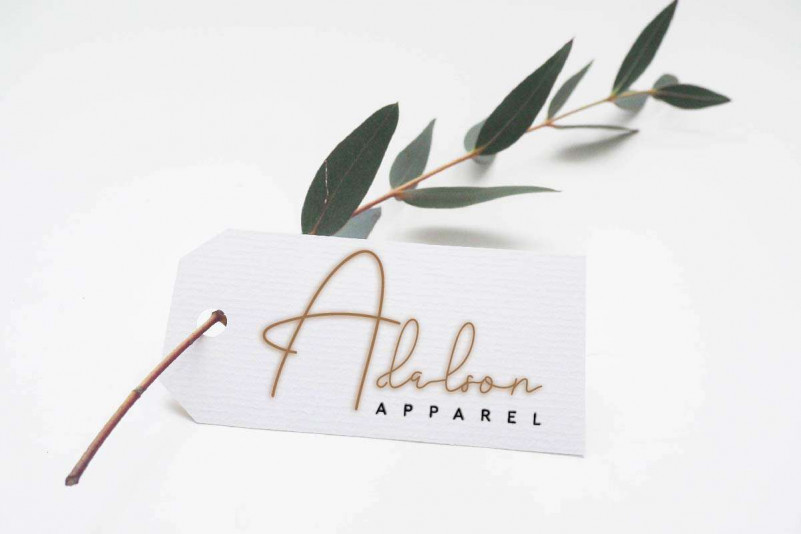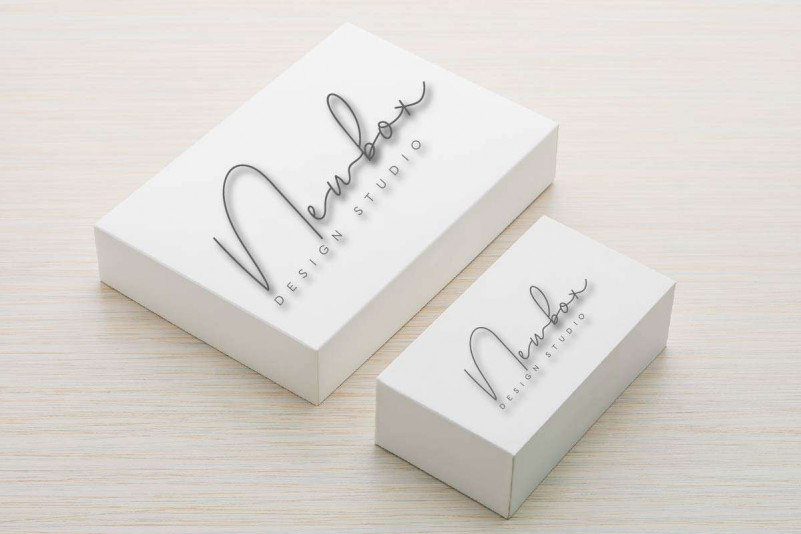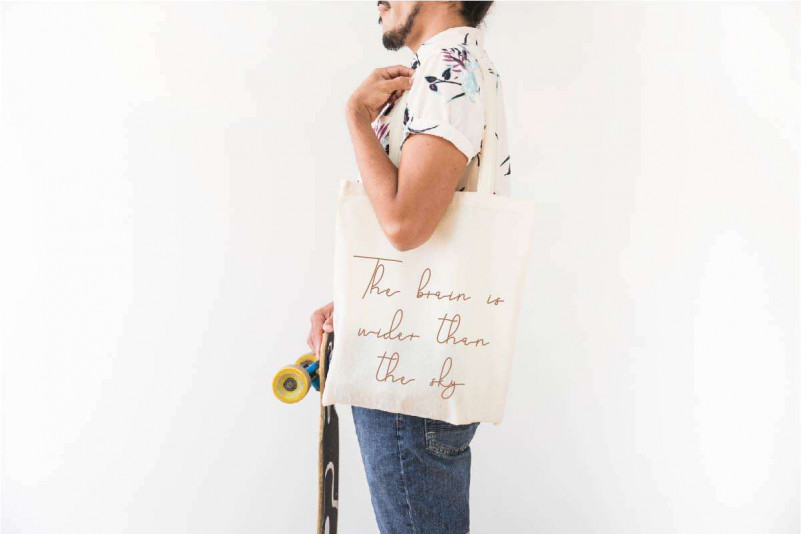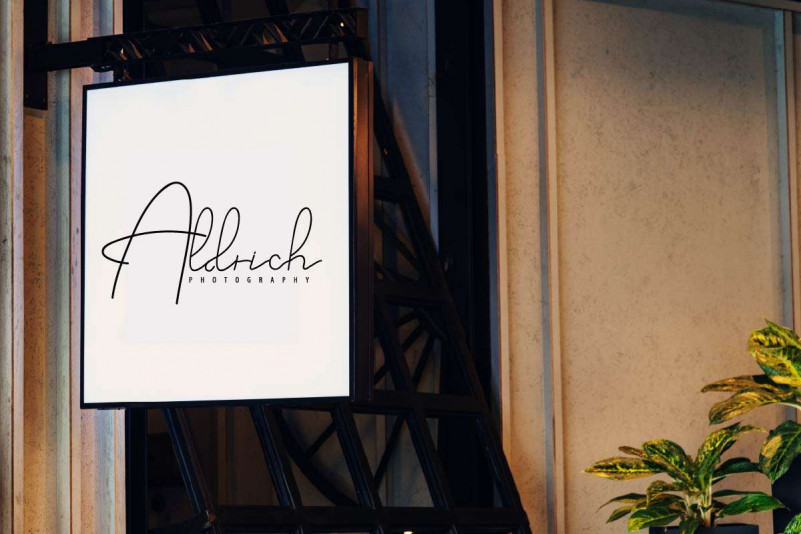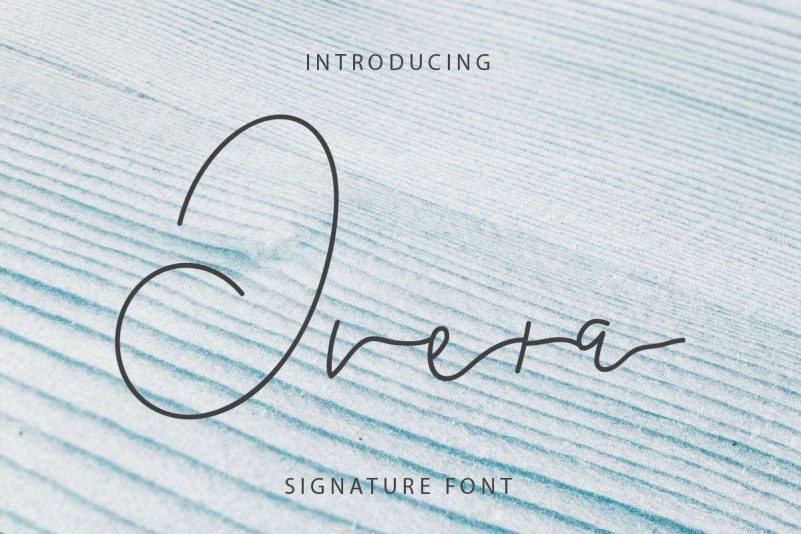
Overa Signature Font
Overa Signature Font. This new font is a signature style font script. This font was made perfectly in our studio in Bandung-Indonesia. It was made by our Typeface designer : Fahri and Sarah.
This font has an exclusive beautiful signature style. The characters of this font is sophisticated, feminine, modern, luxury, elegant, brush and natural look. With these styles you can explore many industries and designs categories : Wedding, catering, Display, Music, Cafe, florist, gardening, makeup, designer etc . With an extendend licenses you can create anything you want : Branding (logo, stationery, bizcard, head letter, folder etc), promotions stuff (flyer, brochure, postcard etc), Digital marketing (Banner, Ads, cover etc), Personal Invitation, Magazine, Website etc.